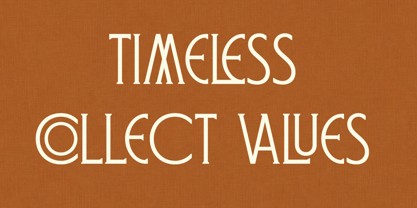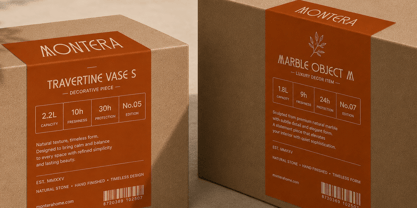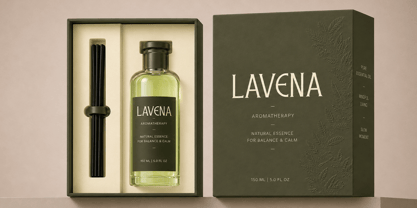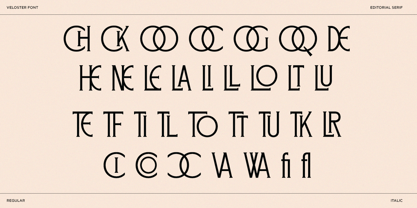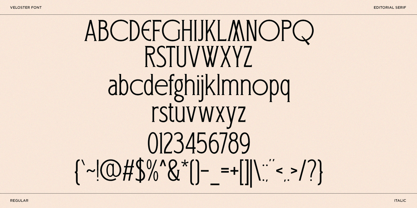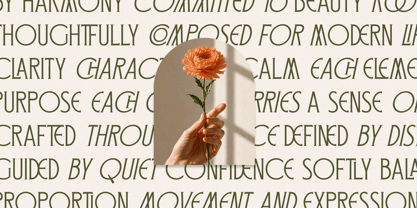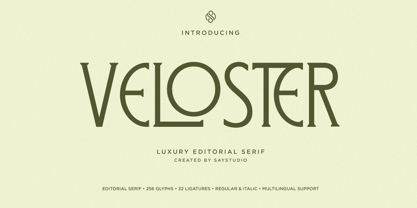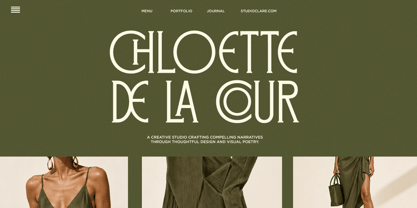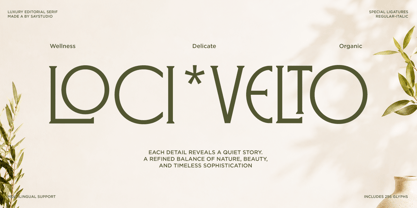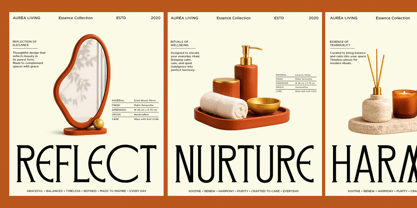
Veloster
by Say Studio
Veloster is a refined luxury editorial serif font crafted to bring elegance, sophistication, and timeless beauty to modern branding projects. Inspired by high-end fashion magazines, premium packaging, boutique lifestyle brands, and contemporary editorial design, Veloster combines graceful serif structures with distinctive artistic ligatures that create a memorable visual identity.
Featuring beautifully balanced proportions, stylish alternates, and carefully designed letterforms, Veloster delivers an upscale aesthetic perfect for luxury logos, fashion campaigns, cosmetic branding, wellness products, jewelry packaging, hotel identities, wedding stationery, and premium marketing materials. Its elegant Regular and Italic styles provide versatility for both striking headlines and sophisticated editorial layouts.
Veloster helps designers create exclusive branding experiences that feel modern, artistic, and effortlessly luxurious. Whether you're building a fashion label, luxury lifestyle brand, beauty product line, or editorial publication, Veloster adds a distinctive touch of class and visual sophistication.
• Veloster Regular and Italic
• Sylistic Ligatures
• Uppercase and Lowercase
• Number, Symbol, and Punctuation
• Multilingual Support